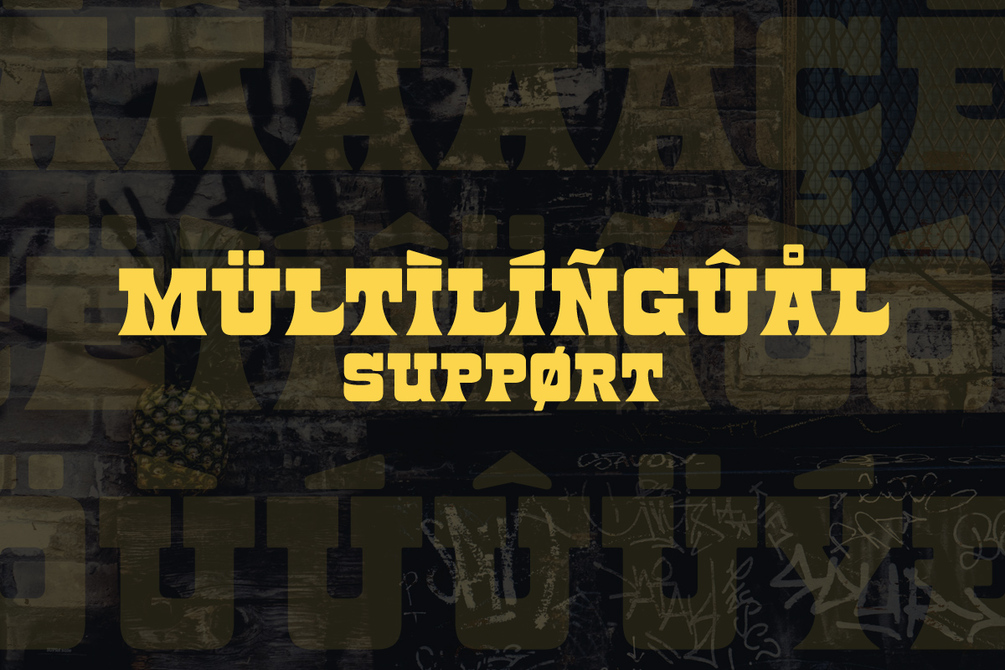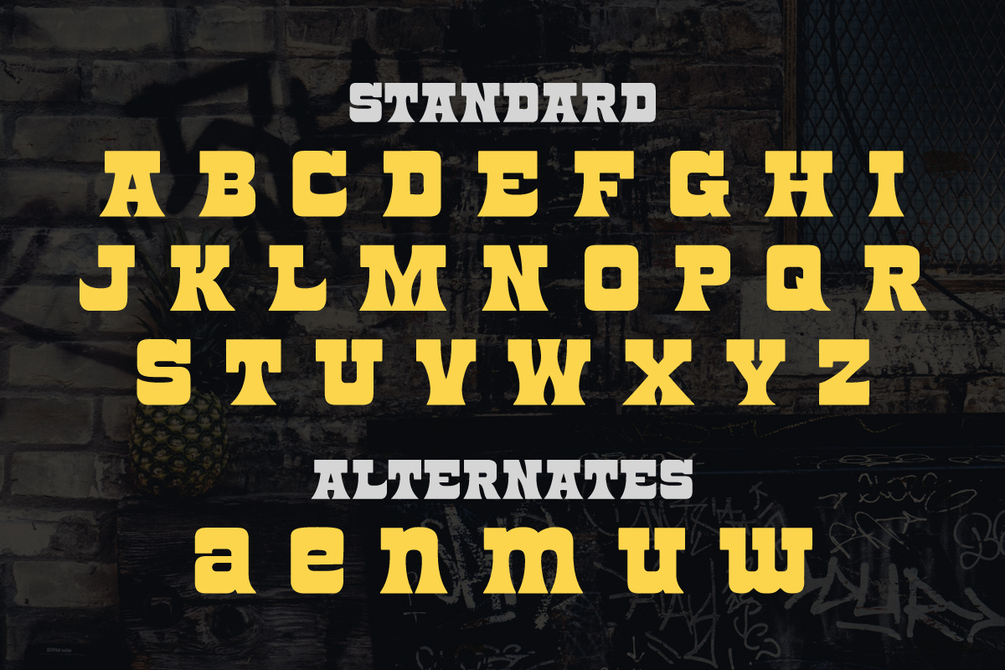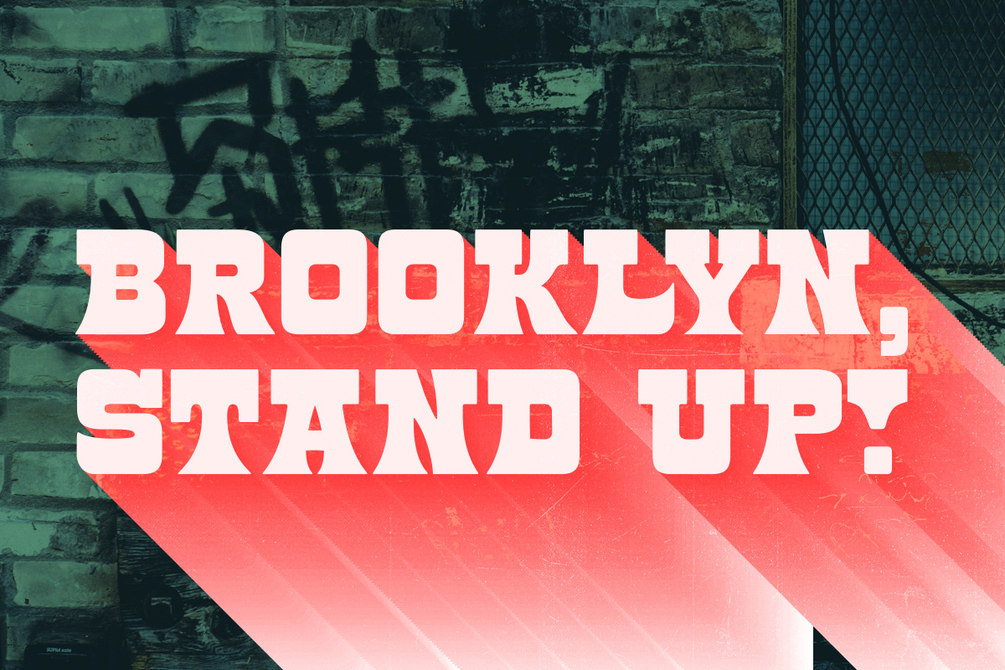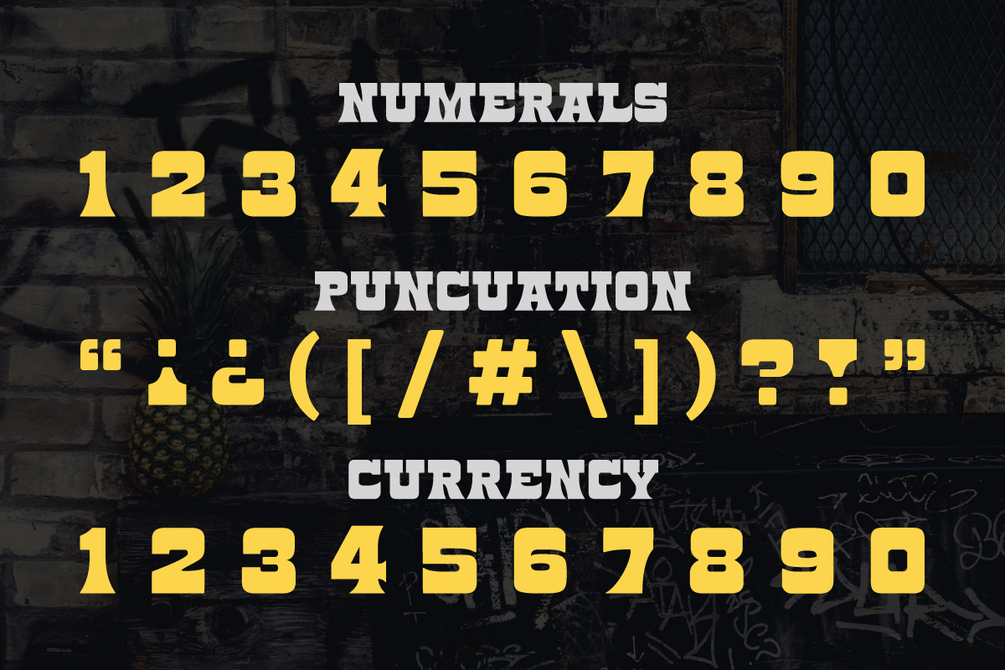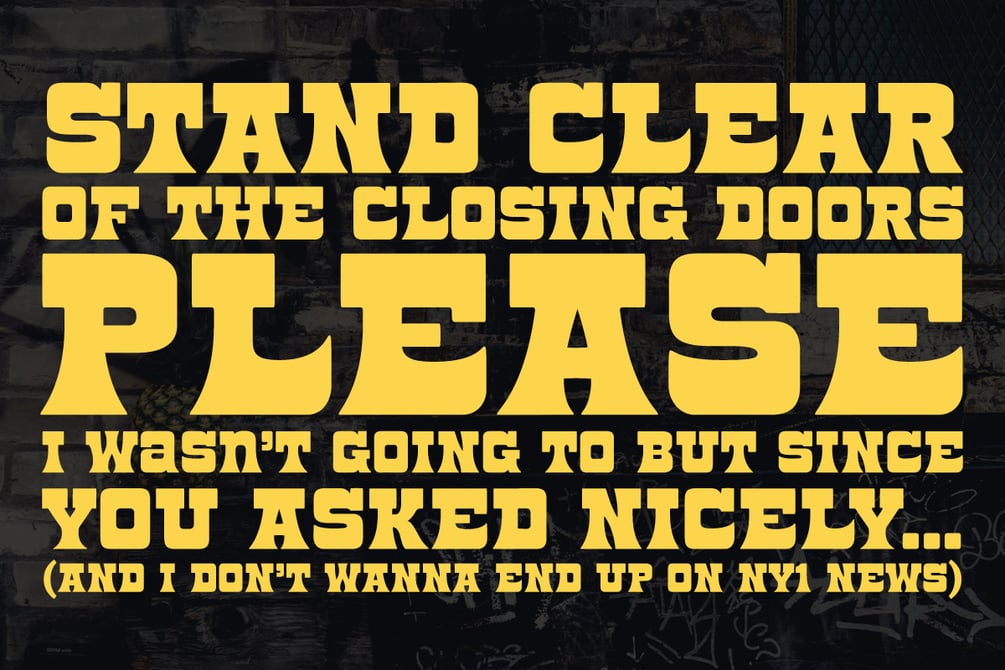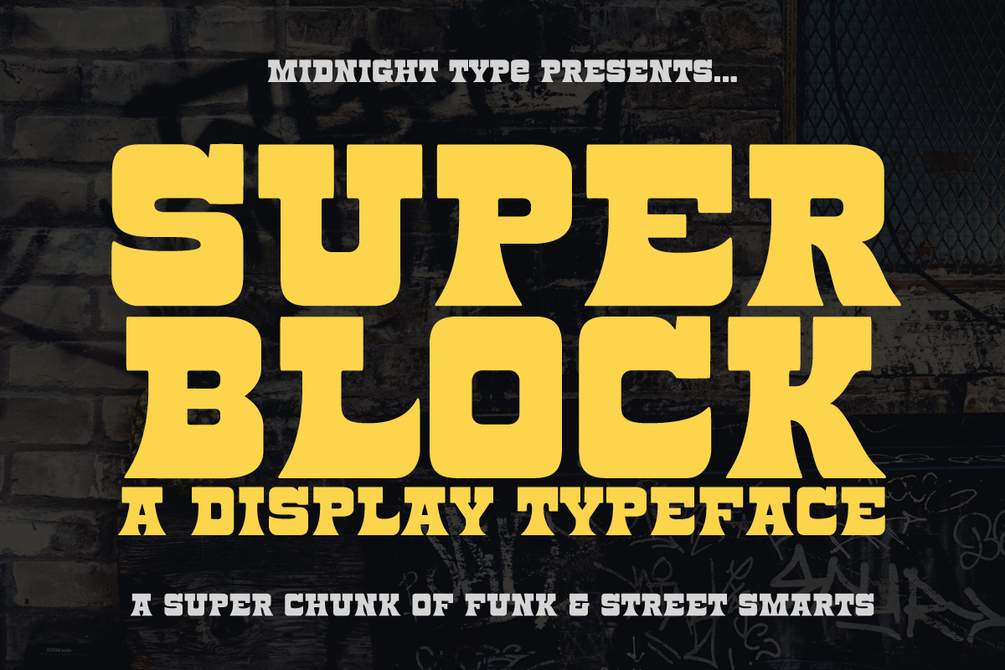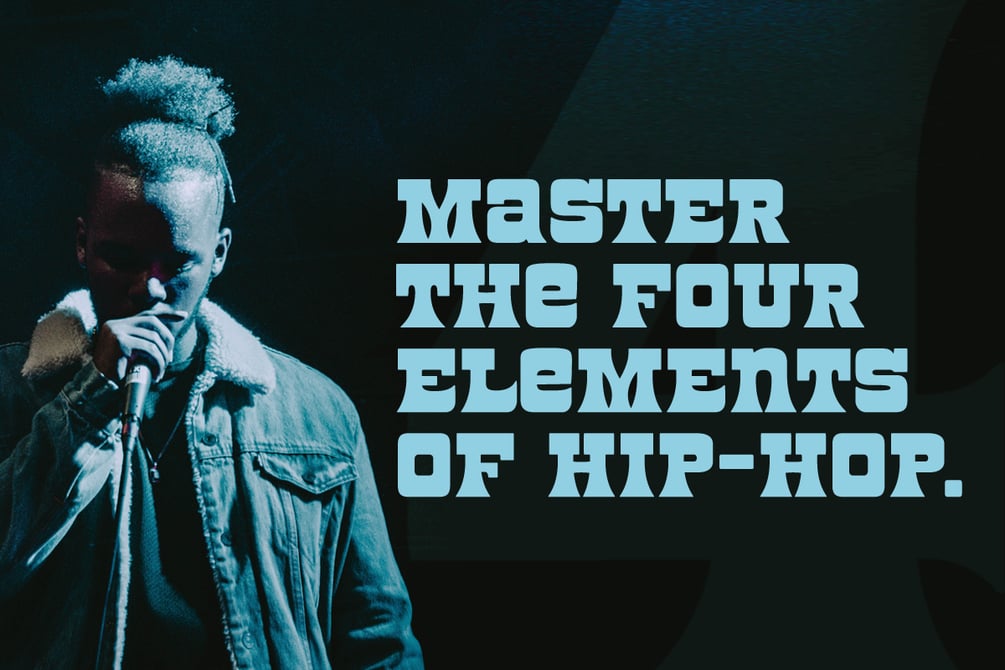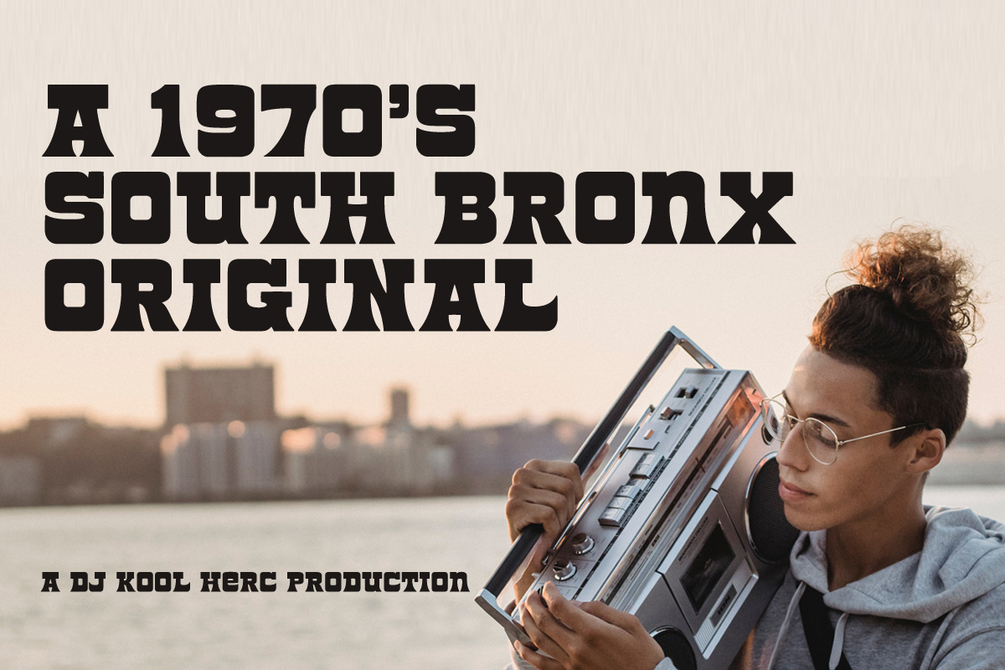
Superblock Typeface
Superblock is a typeface with the feel of a massive, throwback block party. With huge serifs and street cred to spare, Superblock brings the noise and commands attention with any headline, packaging, or identity.
Superblock has decent language support with a number of major diacritics. While it can say, "What's up?" in other languages, it's best suited for basic Latin-based languages.